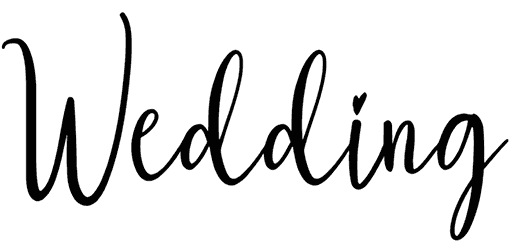
Wedding Font
With a lovely and organic handwritten font, you will present a cheerful layout that can be more impressive. Wedding font is a curvy and delicate wedding font with A-Z support of characters. Embed this all-purpose item for short or long designs like magazines, flyers, invitations, or whatnot, and give them a chic vibe.